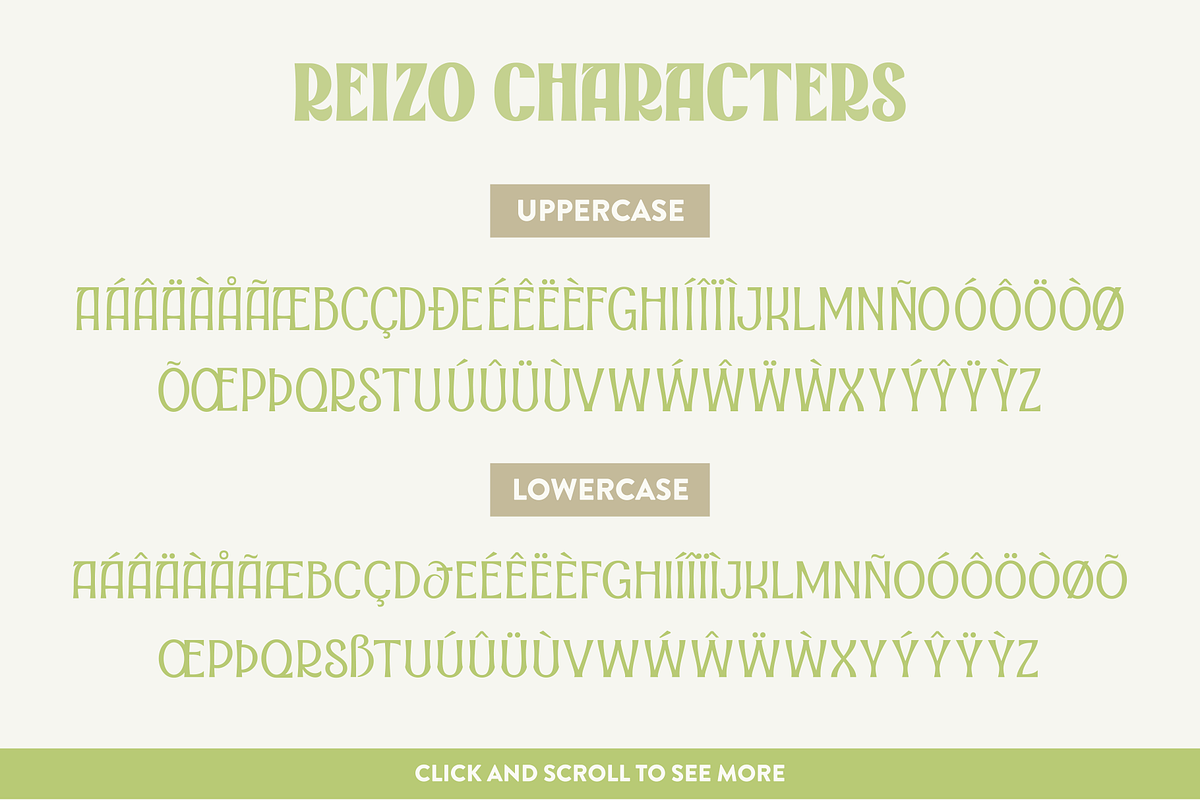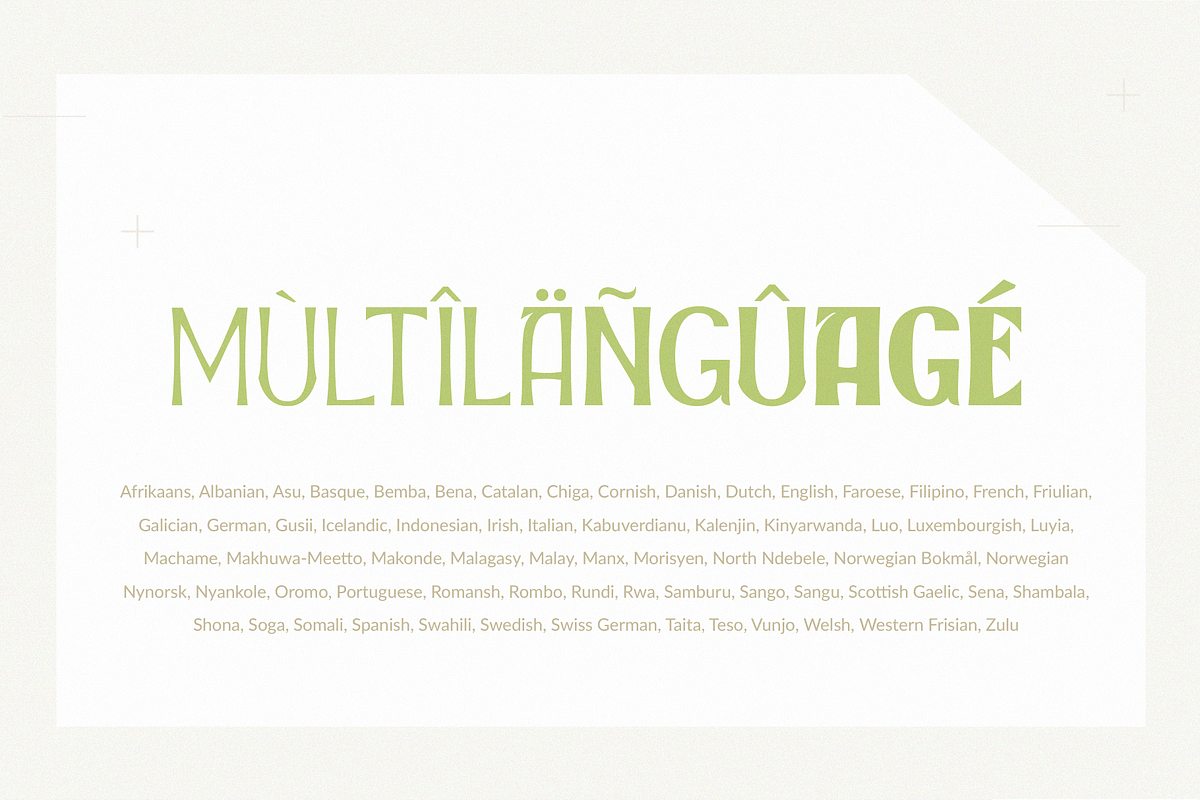
Reizo - a subtle sans serif
Reizo
Reizo is a subtle and simple typeface that brings modern yet vintage feels with unique detail of stems and curves of each characters. Create something beautiful with Reizo such as craft design, prints, logos, posters, t-shirts, packagings, applicable for any type of graphic design.
Reizo is a versatile typeface that's consist of full characters with four variable weights, multi language support, easy to use and compatible with any softwares without any pain.
Crafted with love and easy-to-read letter design.